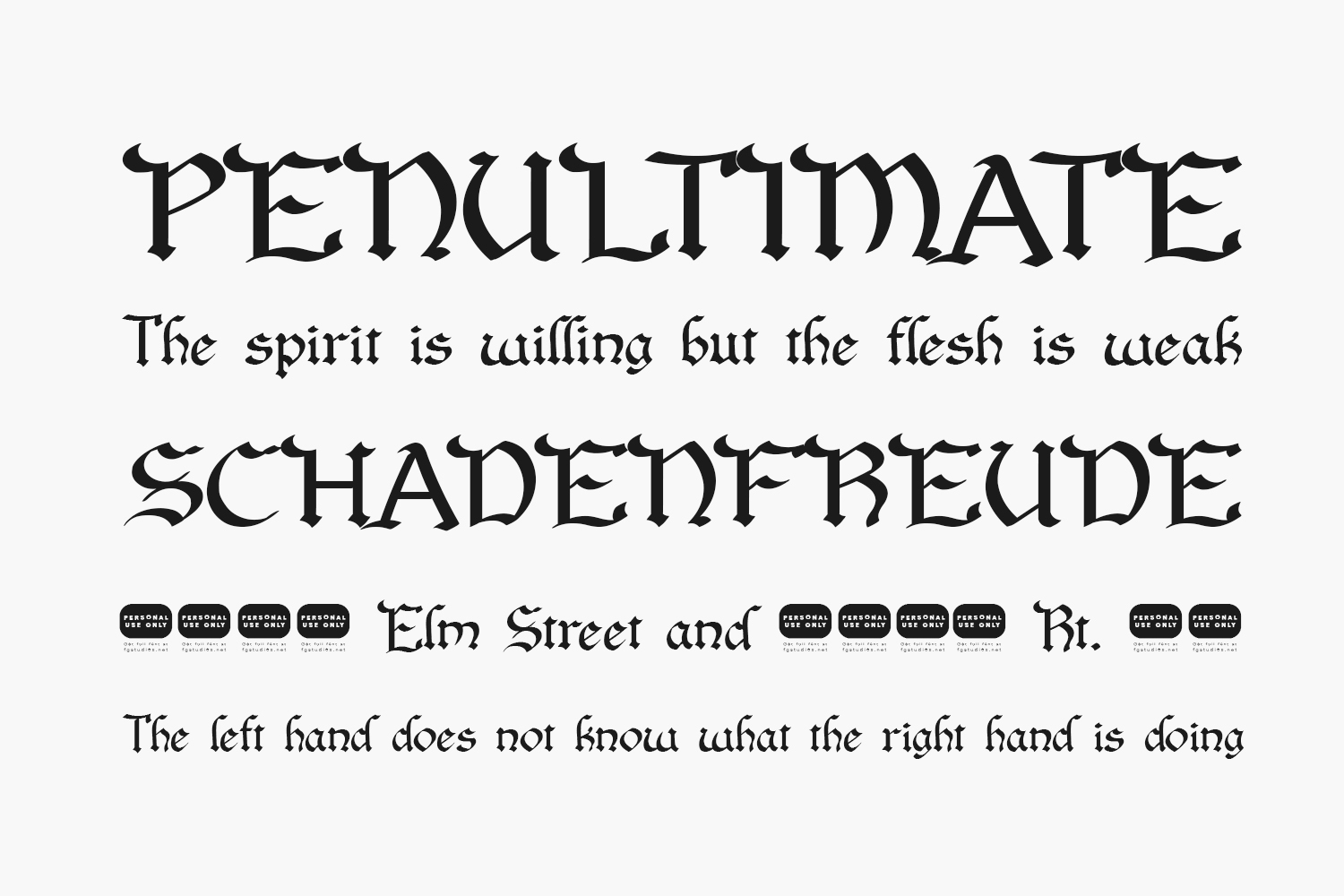
Salium Free Font – Bold Display Typeface for Strong Visual Identity
Salium is a powerful and expressive display font designed by FG Studios to bring bold presence and modern clarity to your creative projects. With its structured letterforms, high contrast, and strong detailing, this free decorative typeface works perfectly for crafting striking logos, brand badges, t-shirt prints, posters, and more. Available in TTF format — ideal for designers seeking a dramatic, impactful font that commands attention while maintaining readability.
Why Choose Salium?
- Bold Display Style: Combines sharp geometry with thick strokes for a confident, professional appearance.
- Ideal for Merch & Apparel: Perfect for clothing tags, band logos, or novelty items needing attitude and impact.
Where to Use Salium?
Salium shines across a variety of creative applications:
- Logos & Brand Identities: Adds intensity to brand kits for underground studios, music labels, or lifestyle brands needing a loud tone.
- T-Shirt & Apparel Design: Designed for printing on clothes, hoodies, or accessories with a bold style.
- Poster & Billboard Design: Built for visibility — makes headlines pop in outdoor advertising and event banners.
- Social Media Graphics: Creates bold text overlays for Instagram Stories, TikTok videos, or YouTube thumbnails with a gritty vibe.
- Packaging Design: Enhances product tags, stickers, or lifestyle goods requiring a dramatic presence.
Design Tips with Salium